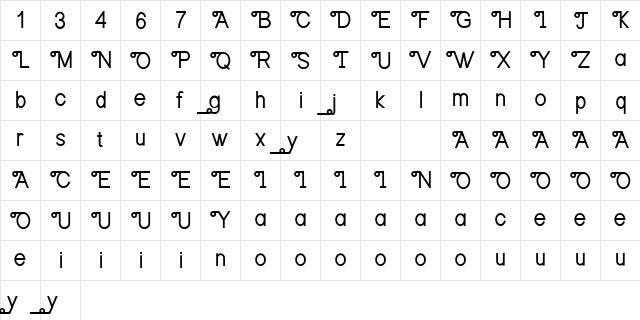
Orangejus Demo Regular
| Designer | AmruID |
Design Context for Orangejus Demo Typeface
Orangejus Demo takes a measured approach to typography — its balanced proportions and neutral character make it a reliable workhorse for both digital and print work.